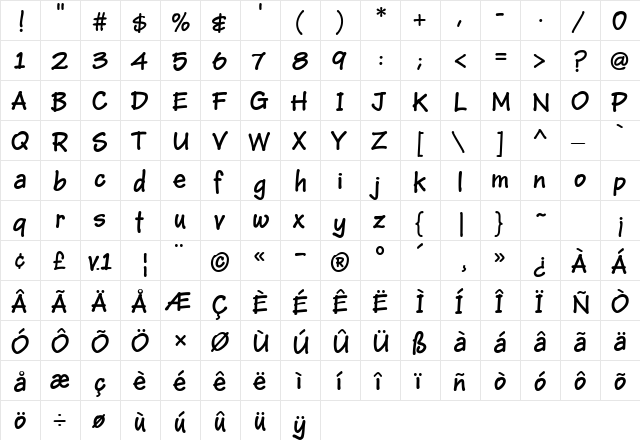
JanieHmkBold Regular
Design Context for JanieHmkBold Typeface
JanieHmkBold takes a measured approach to typography — its balanced proportions and neutral character make it a reliable workhorse for both digital and print work. The heavy weight commands attention and anchors typographic hierarchies.